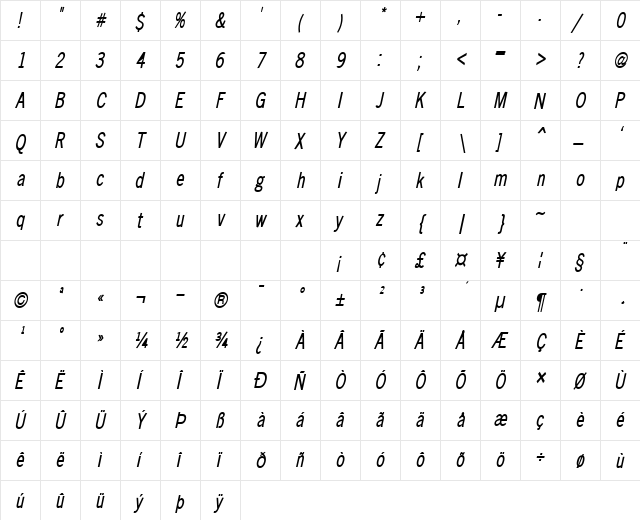
Matterhorn-Condensed Bold Italic Font Preview
Design Context for Matterhorn-Condensed Typeface
Matterhorn-Condensed is a composed and adaptable typeface that performs quietly and consistently across a wide range of design contexts. The dynamic lean of this cut emphasises speed and emphasis in any layout. The heavy weight commands attention and anchors typographic hierarchies. Its narrow stance lets it pack a punch even in space-constrained designs.
Pro Tip: Use Matterhorn-Condensed for emphasis, pull quotes, and subheadings where its slanted energy can add rhythm to the layout.